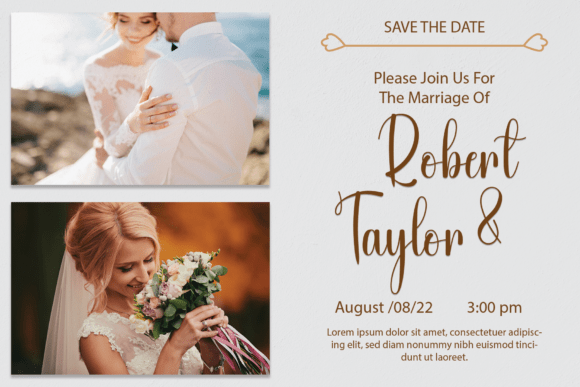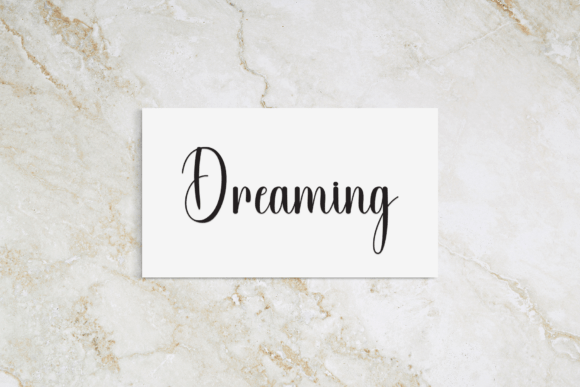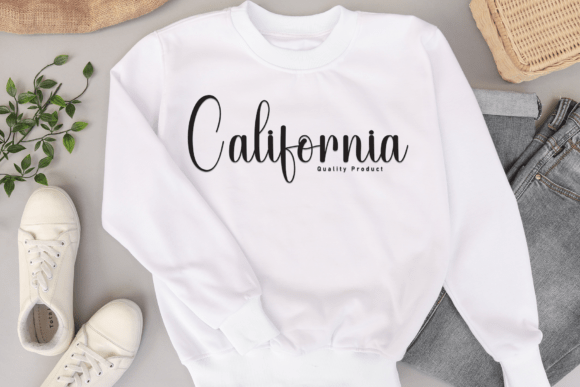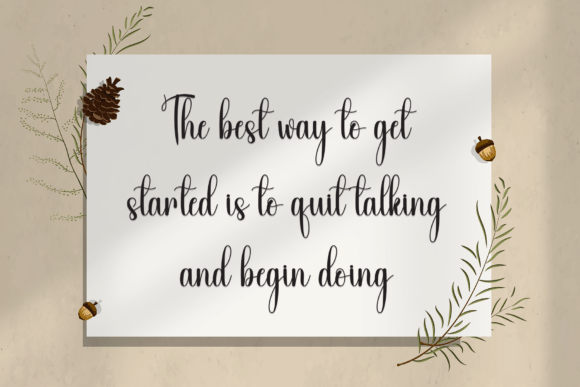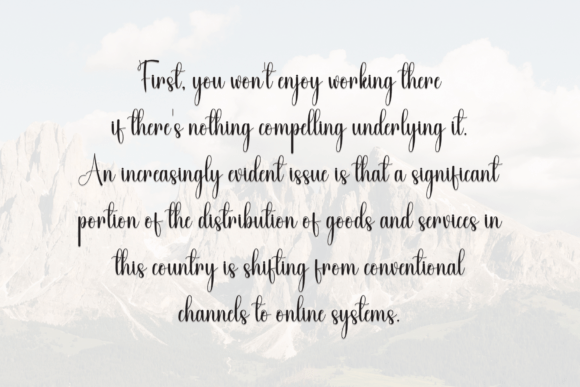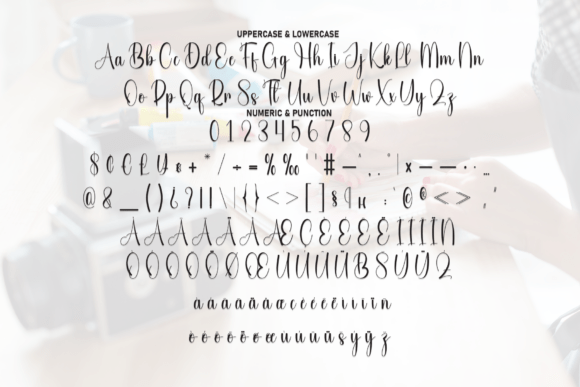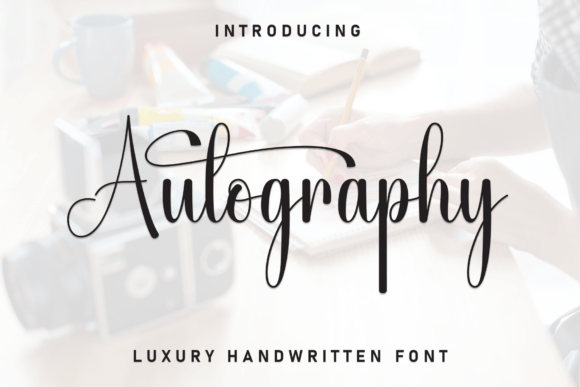
Introducing Autography Font: The Whimsical Handwritten Typeface for Enchanting Designs
Are you a designer or crafter looking for a font that can add a touch of magic to your creative projects? Look no further than Autography Font, a whimsical handwritten typeface that exudes a welcoming and genial aura. This beautiful font is perfect for adding an enchanting allure to wedding invitations, interlacing delightful charm into your creative card designs, or infusing any artistic endeavor with a sprinkle of fun-loving magic.
What Makes Autography Font So Special?
Autography Font is a unique and captivating typeface that blends effortless elegance and charming joviality to craft a look that is strikingly distinctive and irresistibly captivating. Its whimsical and handwritten style makes it perfect for designers and crafters who want to add a personal touch to their projects. Whether you’re creating wedding invitations, greeting cards, or any other type of artistic design, Autography Font is sure to make your work stand out.
The Perfect Font for Wedding Invitations and Card Designs
Wedding invitations and card designs are a great way to showcase your creativity and add a personal touch to special occasions. Autography Font is impeccable for these types of projects, as it adds a touch of elegance and whimsy that is sure to delight. Imagine creating beautiful wedding invitations that set the tone for a romantic and memorable day, or designing greeting cards that are filled with charm and personality. With Autography Font, you can do just that.
Adding a Sprinkle of Fun-Loving Magic to Your Designs
Autography Font is not just limited to wedding invitations and card designs. This versatile typeface can be used in a variety of artistic endeavors, from scrapbooking to digital art. Whether you’re creating a fun and playful design or a more elegant and sophisticated one, Autography Font is sure to add a sprinkle of fun-loving magic to your work. Its charming and whimsical style makes it perfect for designers and crafters who want to add a personal touch to their projects.
Key Features of Autography Font
• Whimsical handwritten typeface with a welcoming and genial aura
• Blends effortless elegance and charming joviality for a strikingly distinctive look
• Perfect for wedding invitations, card designs, scrapbooking, and digital art
• Adds a touch of magic and whimsy to any design
• Easy to use and versatile
Tips for Using Autography Font in Your Designs
Here are a few tips for using Autography Font in your designs:
• Use Autography Font as a headline or title font to add a touch of elegance and whimsy to your design
• Pair Autography Font with other fonts to create a unique and interesting contrast
• Experiment with different colors and textures to add depth and interest to your design
• Use Autography Font to add a personal touch to your designs, such as in a signature or a quote
Autography Font is a beautiful and versatile typeface that is perfect for designers and crafters who want to add a touch of magic to their creative projects. Its whimsical and handwritten style makes it perfect for wedding invitations, card designs, scrapbooking, and digital art. With its effortless elegance and charming joviality, Autography Font is sure to make your work stand out and leave a lasting impression.